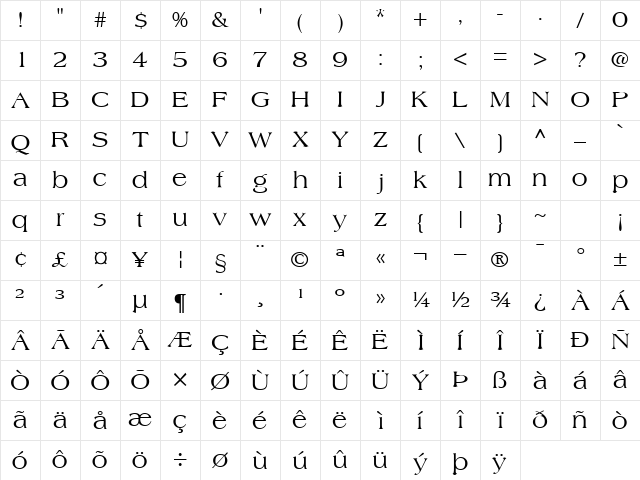
CountrysideSSK Regular Free Font
CountrysideSSK Regular
CountrysideSSK Regular Family
Complete CountrysideSSK Regular glyph index. Displaying only characters natively supported by CountrysideSSK Regular font.
Design Context for CountrysideSSK
CountrysideSSK is a composed and adaptable typeface that performs quietly and consistently across a wide range of design contexts.